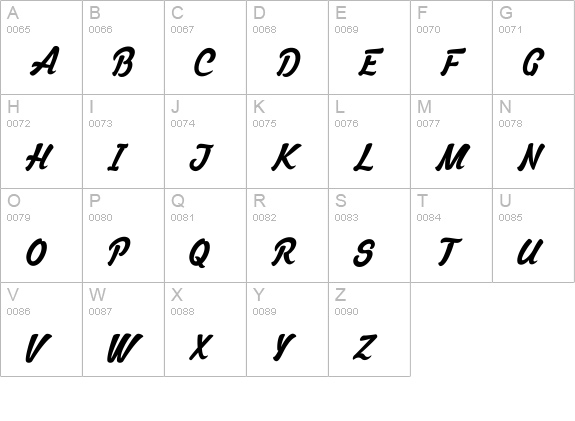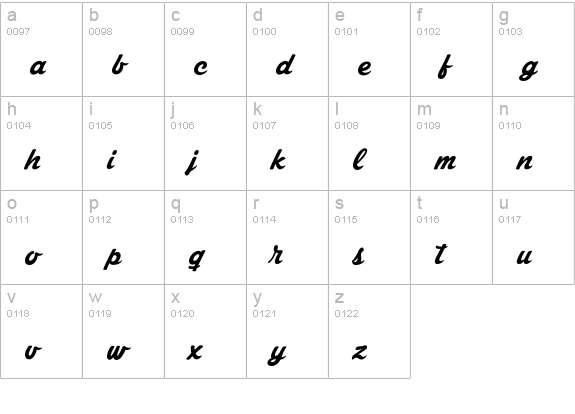
Mastoc Personal Use Only Font Details
Introducing the exquisite Mastoc Personal Use Only font, a true gem for all typography enthusiasts. This font is not only visually stunning but also incredibly versatile, making it perfect for a wide range of creative projects. With its elegant and refined design, Mastoc Personal Use Only font adds a touch of sophistication to any text or design. Its smooth lines and stylish curves create a harmonious balance, capturing attention and leaving a lasting impression on viewers. Whether used for logos, branding, invitations, or advertisements, this font is sure to elevate your design to new heights. What makes Mastoc Personal Use Only font even more impressive is that it is absolutely free. That's right, you can download this font without any cost at FontsMarket.com. This means that you can enjoy the beauty and functionality of this font without breaking the bank. With its generous character set and extensive language support, Mastoc Personal Use Only font provides endless possibilities for your creative endeavors. Whether you're designing for personal use or professional projects, this font has you covered. Its versatility ensures that it can be seamlessly integrated into various design styles and themes. Don't miss out on the opportunity to enhance your designs with the captivating Mastoc Personal Use Only font. Download it for free today at FontsMarket.com and unlock a world of creative possibilities. Let this font be the secret weapon in your design arsenal, impressing audiences and captivating minds with its timeless elegance.